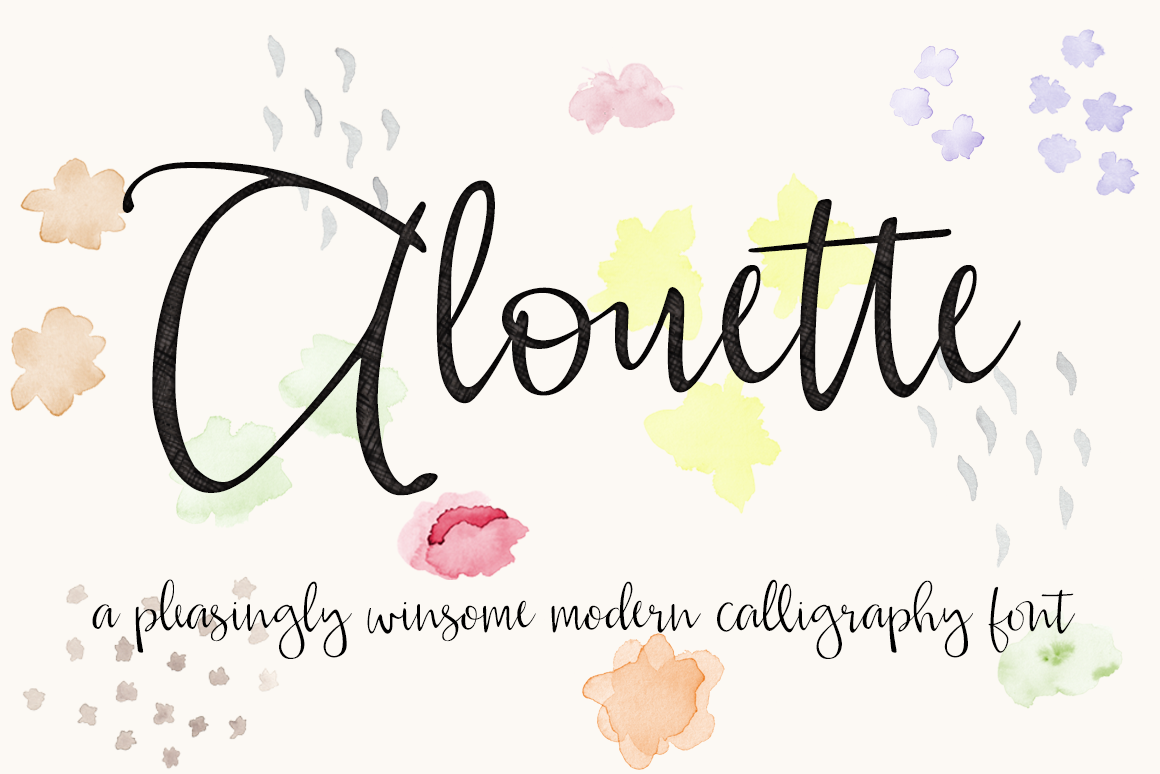
Alouette Modern Calligraphy Font
Alouette is a hand-lettered modern calligraphy script font, that includes discretionary ligatures, stylistic alternates, initial and terminal forms. Alouette includes several ligatures and alternates to make your text look more handwritten. Perfect for invitations, greeting cards, typographical art, logos, letterpress printing, and all sorts of other design projects.
Initial and terminal forms can be accessed by typing the bracket keys [ ] on your keyboard. Use the [ for your initial form, and ] for your terminal form.
I've made a special shortcut for you to add those cool dots between your numbers, like the ones seen on those fancy hand addressed envelopes. You will be able to quickly add those dots by typing the ^ on your keyboard. Try it out below in the live preview.